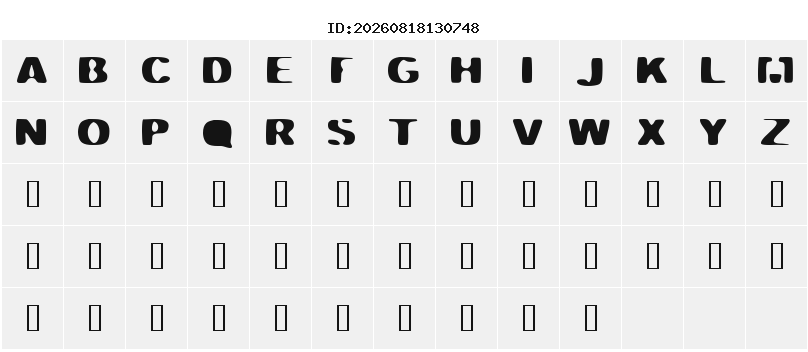
Smokin Fatties Preview
• Font Name: Smokin Fatties
• Full Font Name: Smokin Fatties
About Smokin Fatties.ttf
Smokin Fatties.ttf is a modern, elegant sans-serif font designed for ultimate readability and visual harmony. Perfect for branding, headlines, web design, and print materials.